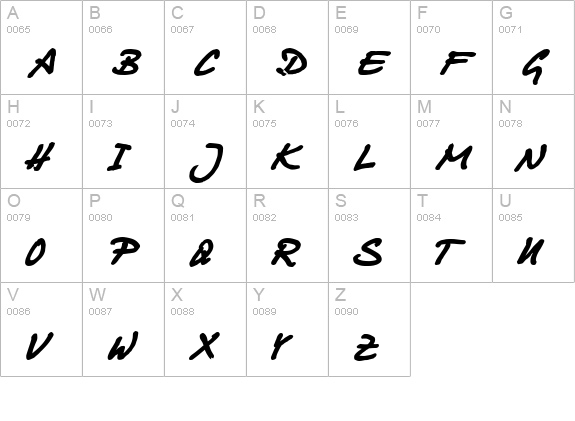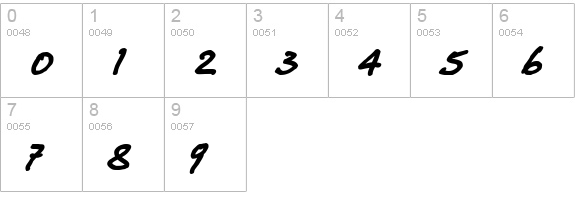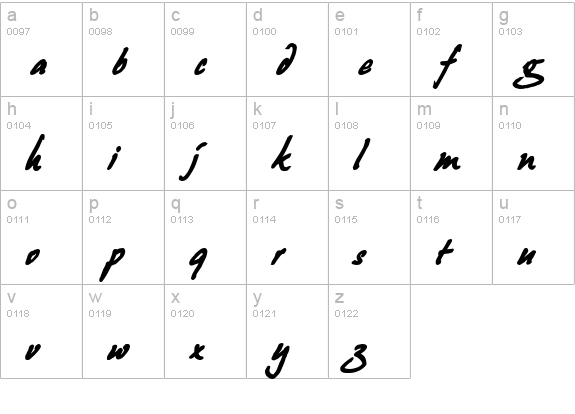
Juergen Bold Kursiv Font Details
Juergen Bold Kursiv is a strong, high-contrast variant in the Juergen typeface family \xE2\x80\x94 well suited to headlines, attention-grabbing titles, and strong calls-to-action.
Introducing Juergen Bold Kursiv font, a stunning display typeface that exudes elegance and sophistication. With its bold and italic design, this font is perfect for creating eye-catching headings, titles, and logos that demand attention. The sleek curves and sharp angles of Juergen Bold Kursiv add a modern touch to any design project. What sets Juergen Bold Kursiv apart is not only its striking aesthetics but also its versatility. Whether used for print or digital media, this font adapts seamlessly to various design applications, making it a must-have in any designer's toolkit. What's even better is that Juergen Bold Kursiv is available for free download at FontsMarket.com. Yes, you read that right – you can elevate your design projects with this premium font without breaking the bank. So why wait? Download Juergen Bold Kursiv today and add a touch of sophistication to your designs!